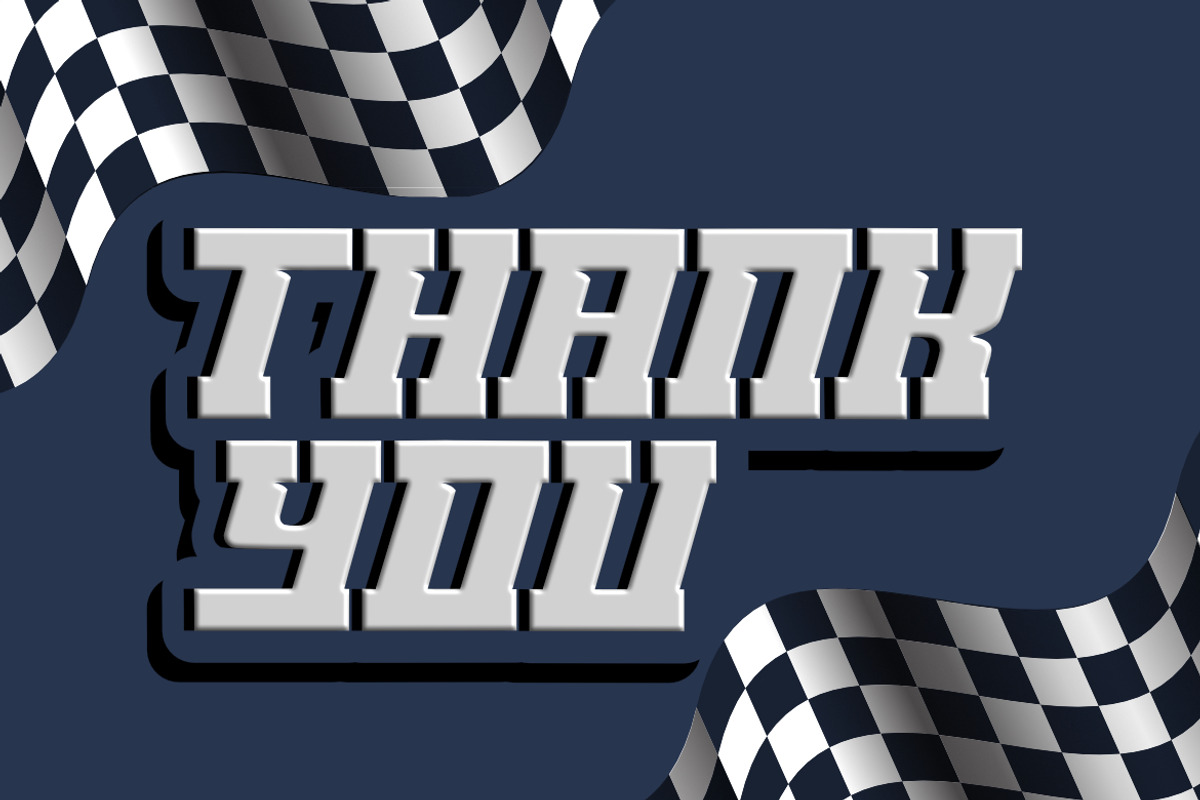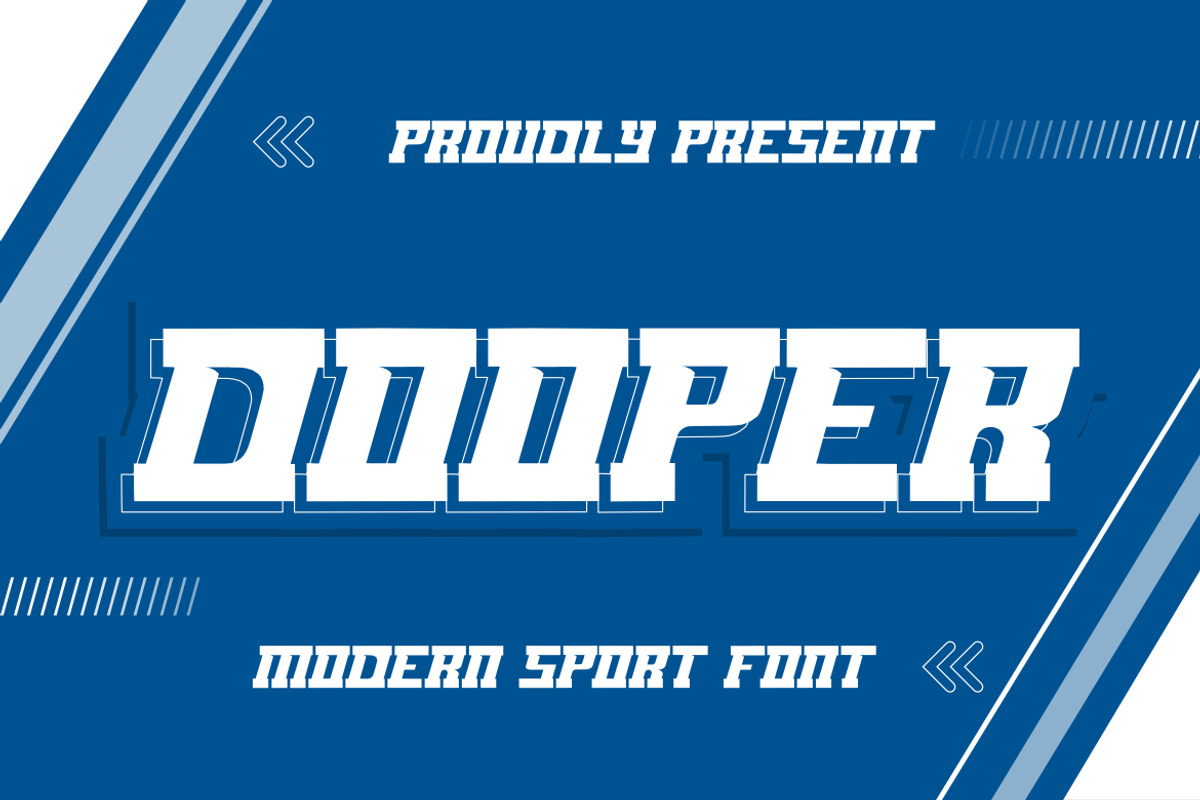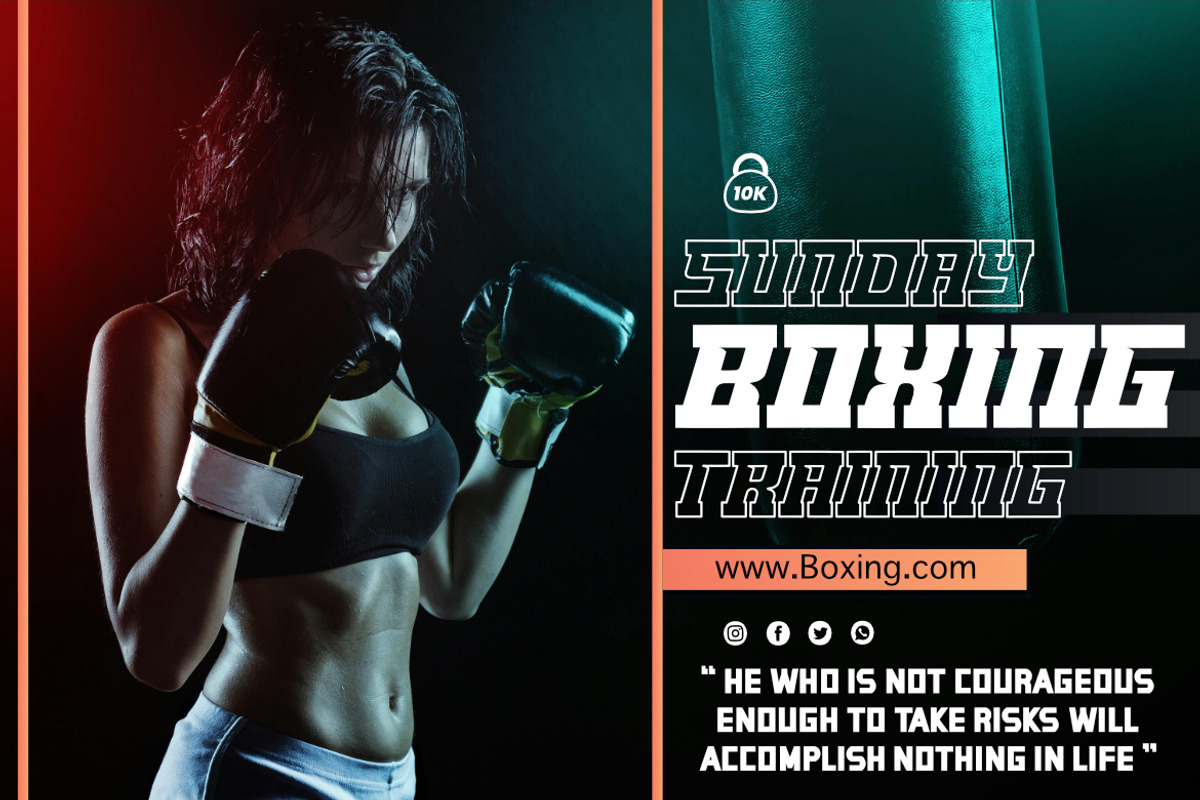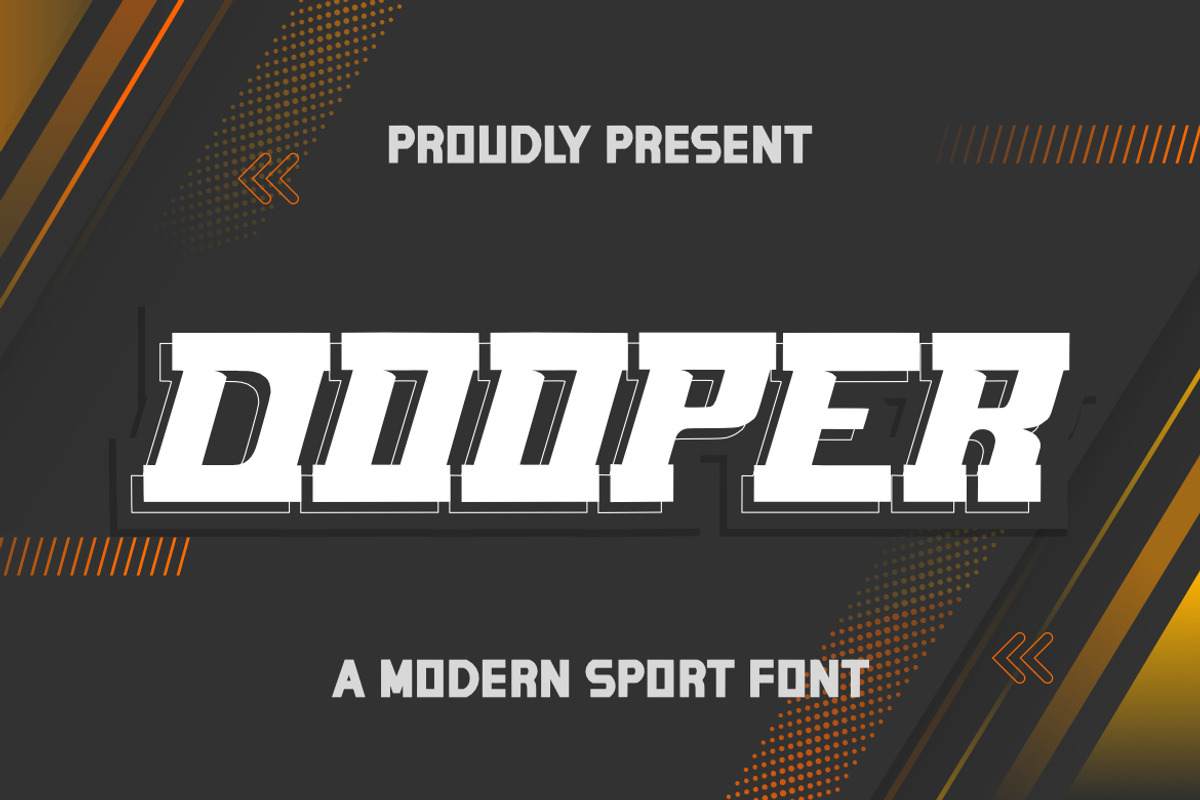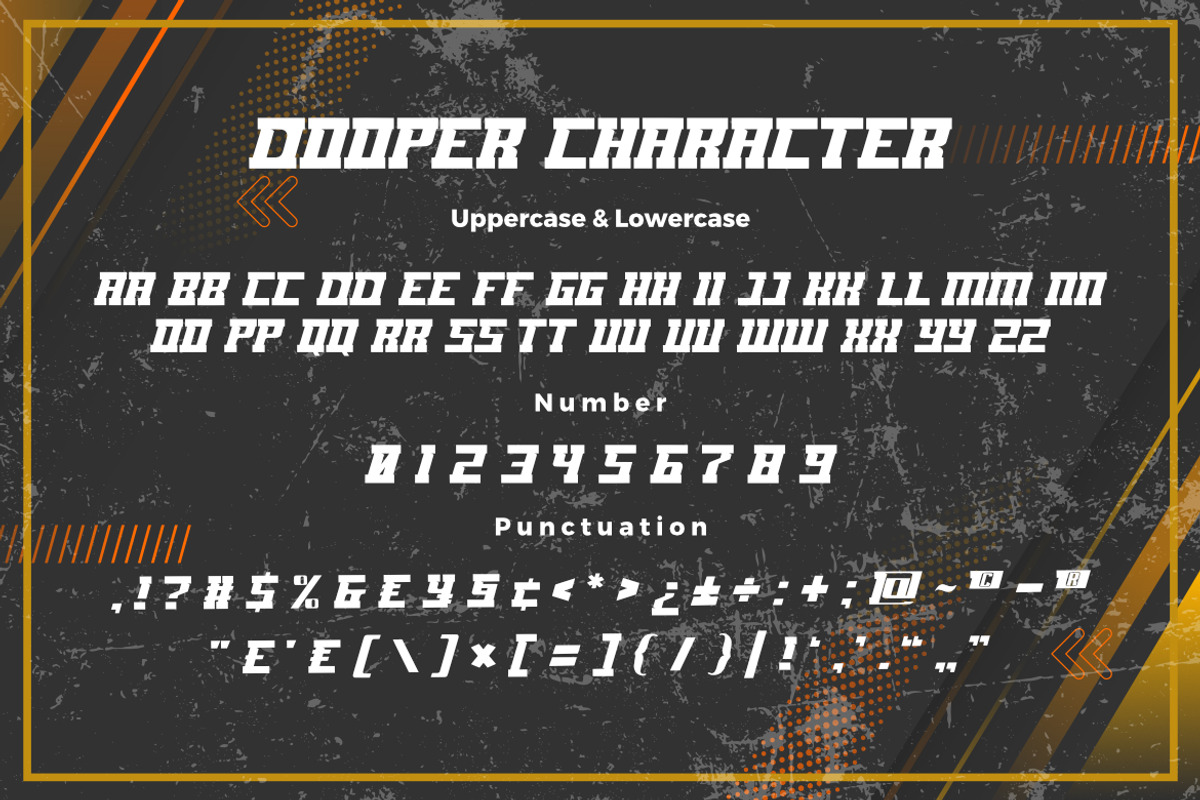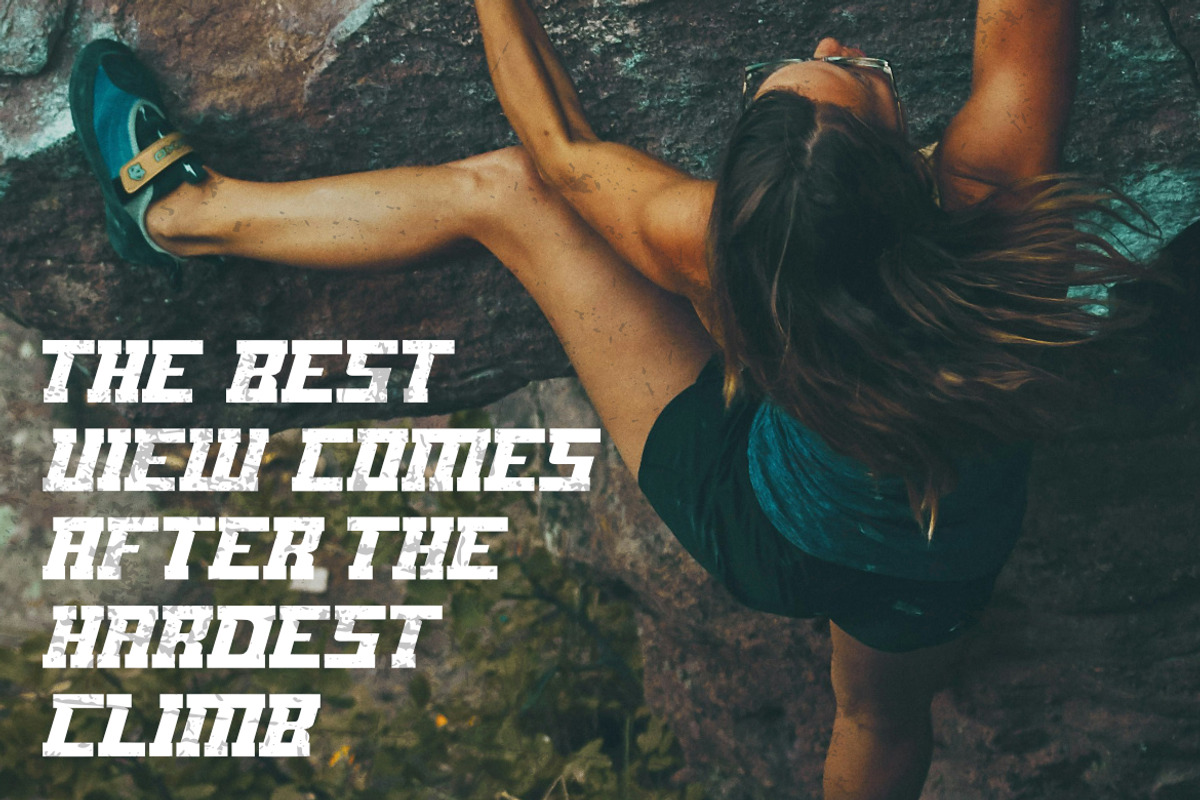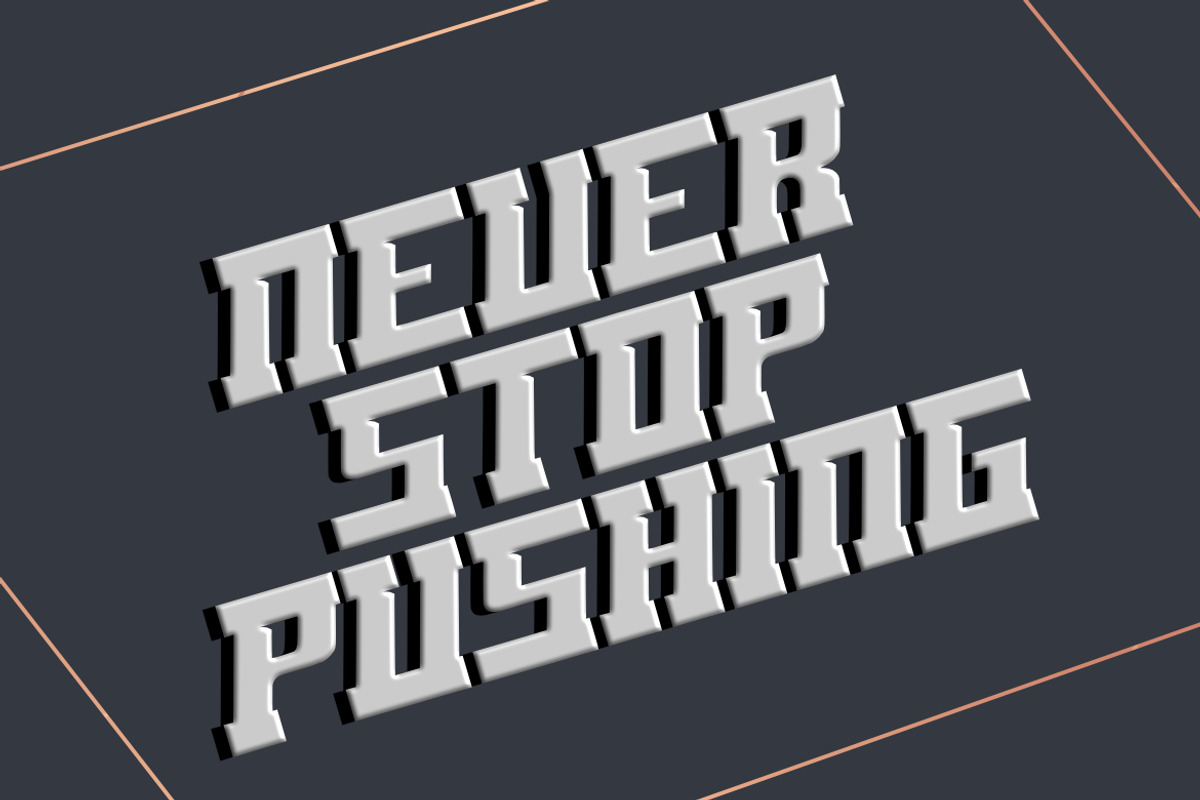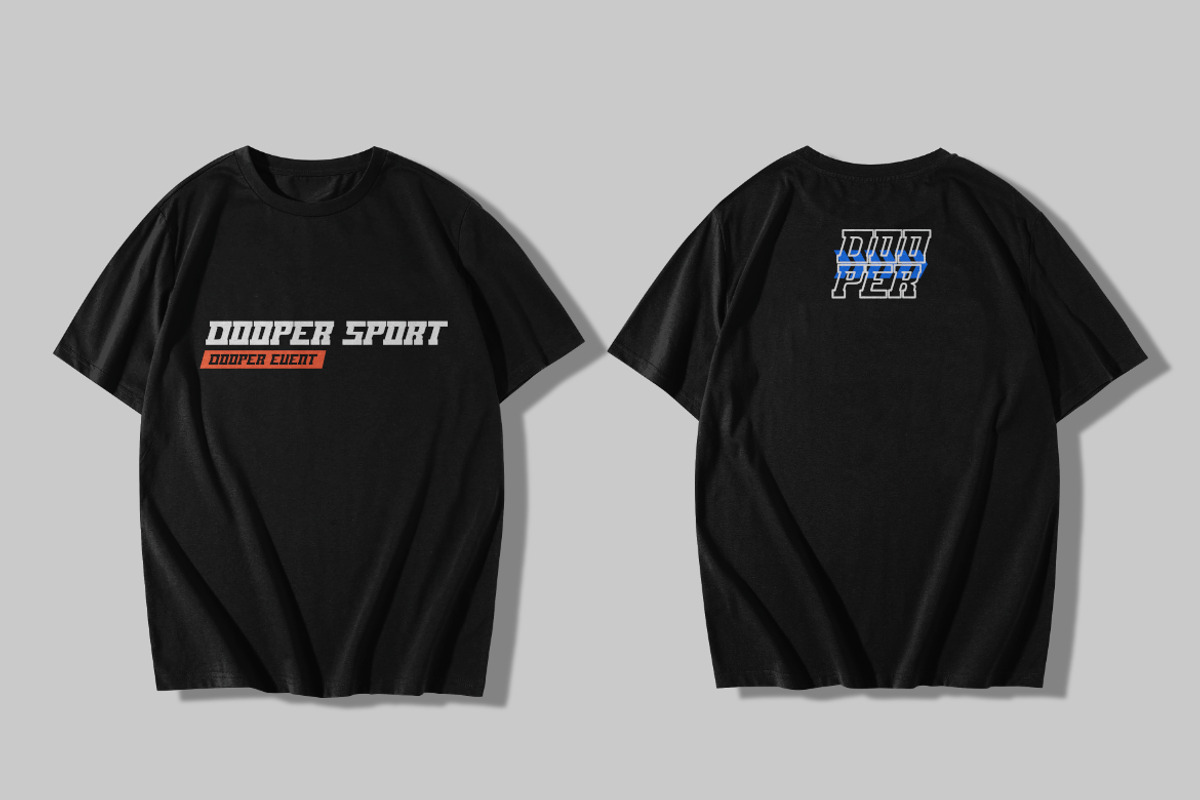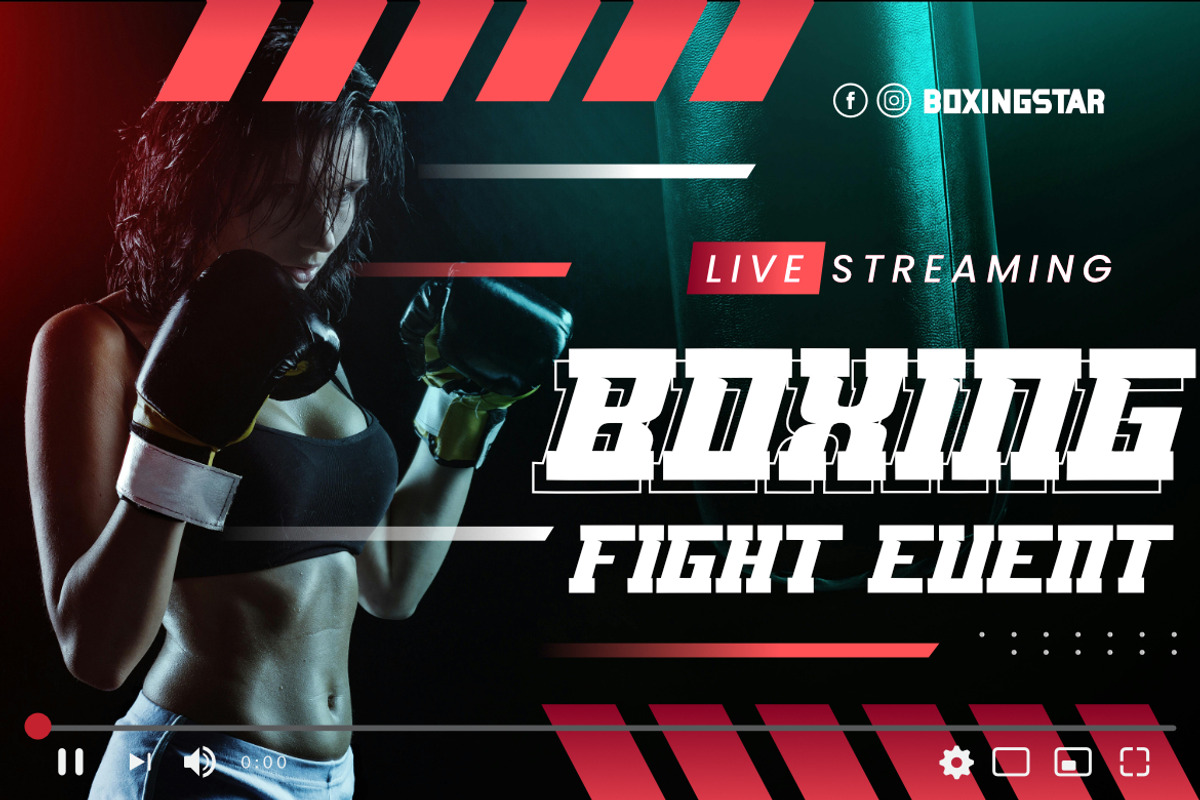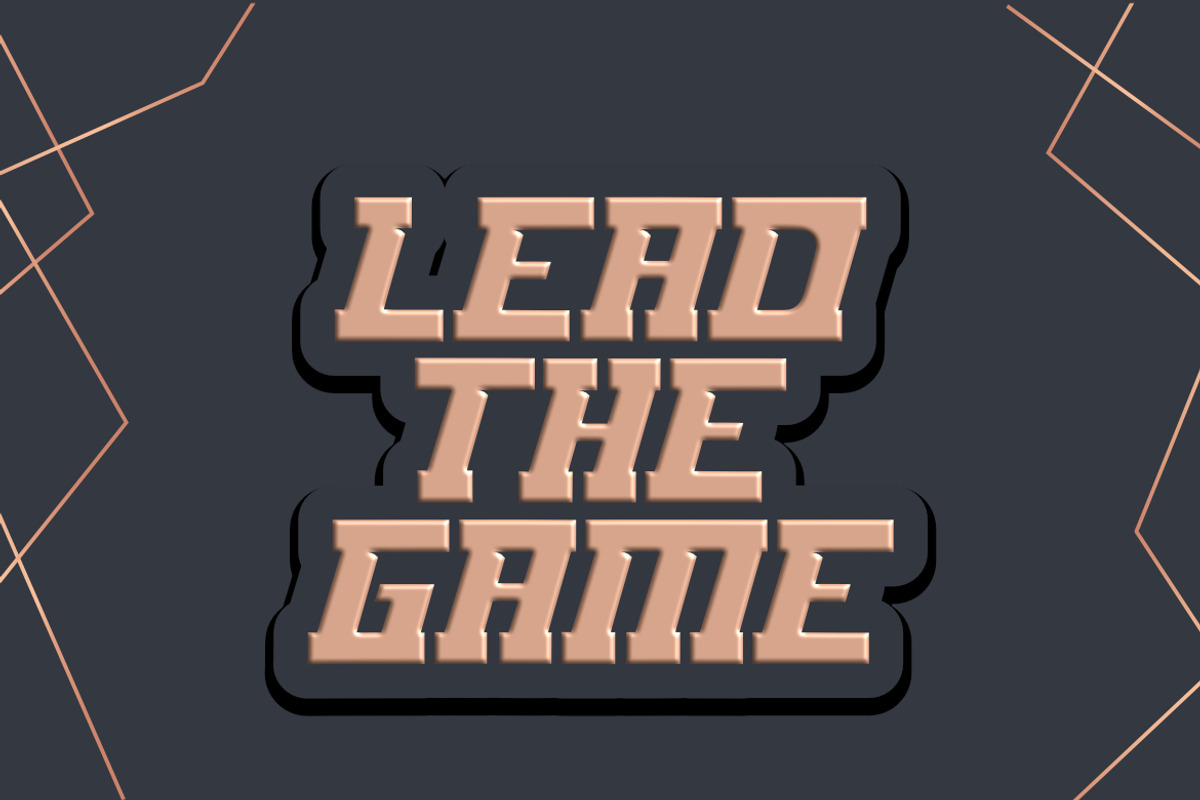
DOOPER Modern Sport Font
DOOPER Sport Font, This font is made with a high premium quality level which you can use as flyers, quotes, posters, banners, packaging, merchandise, logotypes and much more.